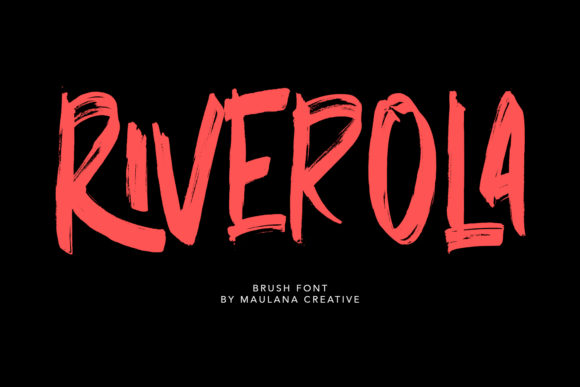
As you embark on your creative journey, allow Riverola Font to be your guiding light. This exceptional display font, crafted by the visionary Maulana Creative, offers a captivating blend of individuality and charm.
With its whimsical and playful nature, Riverola Font effortlessly commands attention, making it the perfect choice for expressing your creativity in music videos. Its versatility extends far beyond the realm of music, seamlessly adapting to various contexts and concepts.
Whether you seek to ignite passion or evoke a sense of wonder, Riverola Font possesses the transformative power to bring your creations to life. Its captivating curves and playful strokes inspire a kaleidoscope of emotions, allowing you to weave narratives that resonate with your audience.
Imagine your music video, infused with the infectious energy and captivating charm of Riverola Font. Its unique character adds depth and intrigue, captivating viewers from the very first frame.
Riverola Font is not merely a collection of letters; it's a gateway to unlocking your imagination. With its unparalleled ability to ignite emotions and inspire creativity, Riverola Font empowers you to create unforgettable experiences that transcend the boundaries of the ordinary.